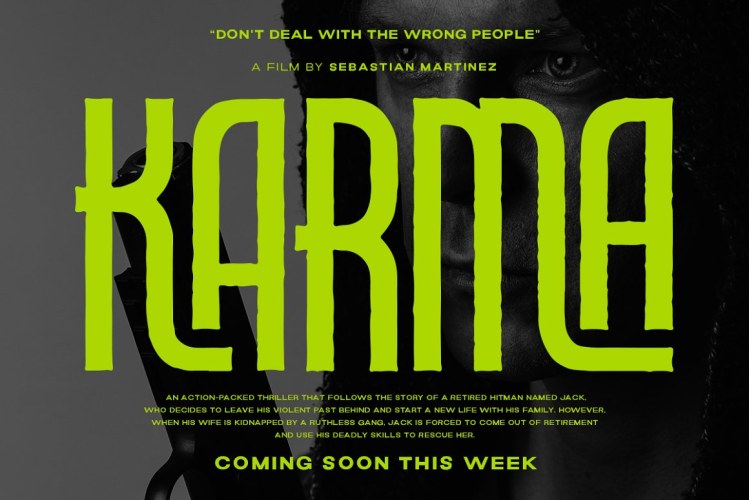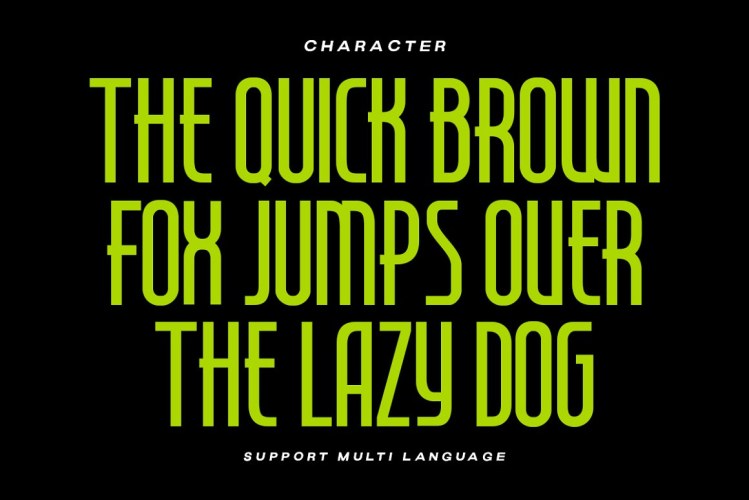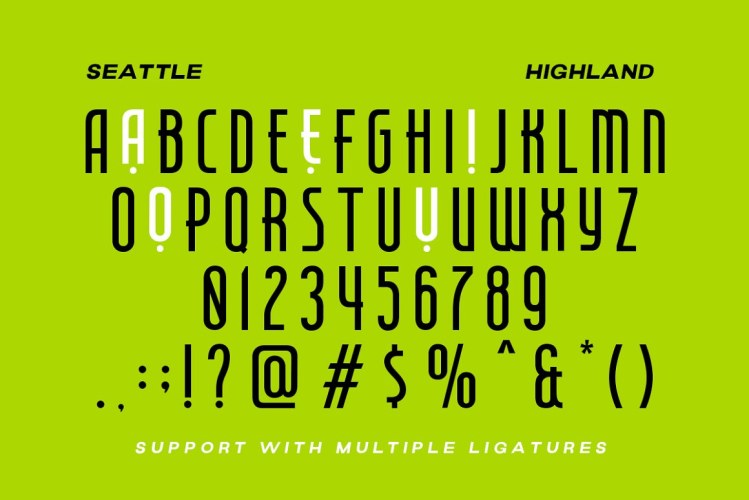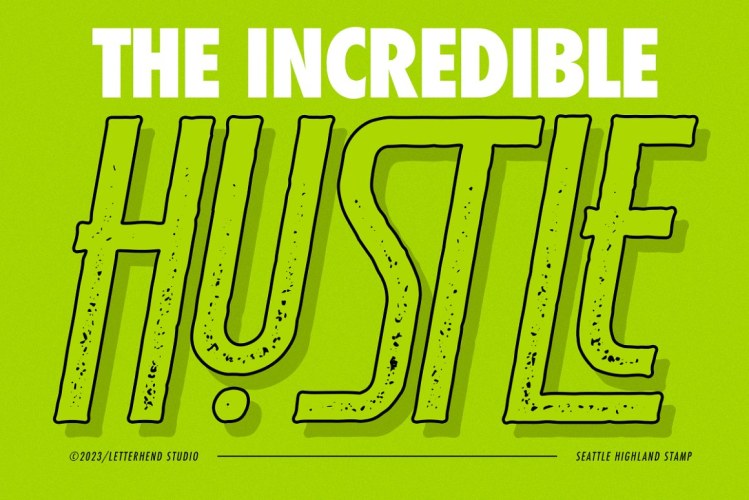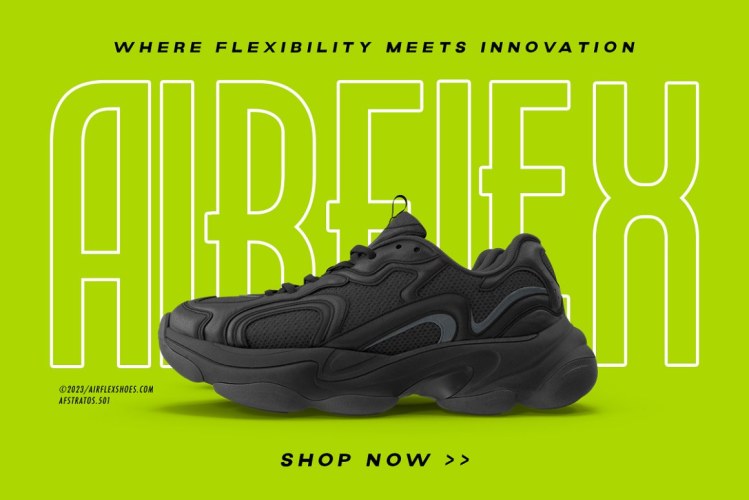
Seattle Highland – Condensed Font
Introducing, The epitome of modernity in this extras condensed display font, Seattle Highland. With its clean and crisp appearance, it exudes a sense of modernity and so…
Introducing, The epitome of modernity in this extras condensed display font, Seattle Highland. With its clean and crisp appearance, it exudes a sense of modernity and sophistication. It comes with unique rough and stamp style, add a touch of ruggedness, making it a font that effortlessly bridges the gap between cool and contemporary.
This font adds a unique touch to any design project. From logos to posters, Seattle Highland is the perfect choice for applications that require a fresh and contemporary look.
Where Seattle Highland – Condensed Font works best
Seattle Highland – Condensed Font is built for size: event posters, hero headlines and billboard-style layouts.
High contrast display type like Seattle Highland – Condensed Font reads instantly in thumbnails and motion graphics.
What is Seattle Highland – Condensed Font good for?
Seattle Highland – Condensed Font is a Display Fonts typeface tagged Branding, Clean, Condensed, Contemporary. It works well for headlines, logos, posters, social media graphics and branding projects that need a distinctive display fonts look.